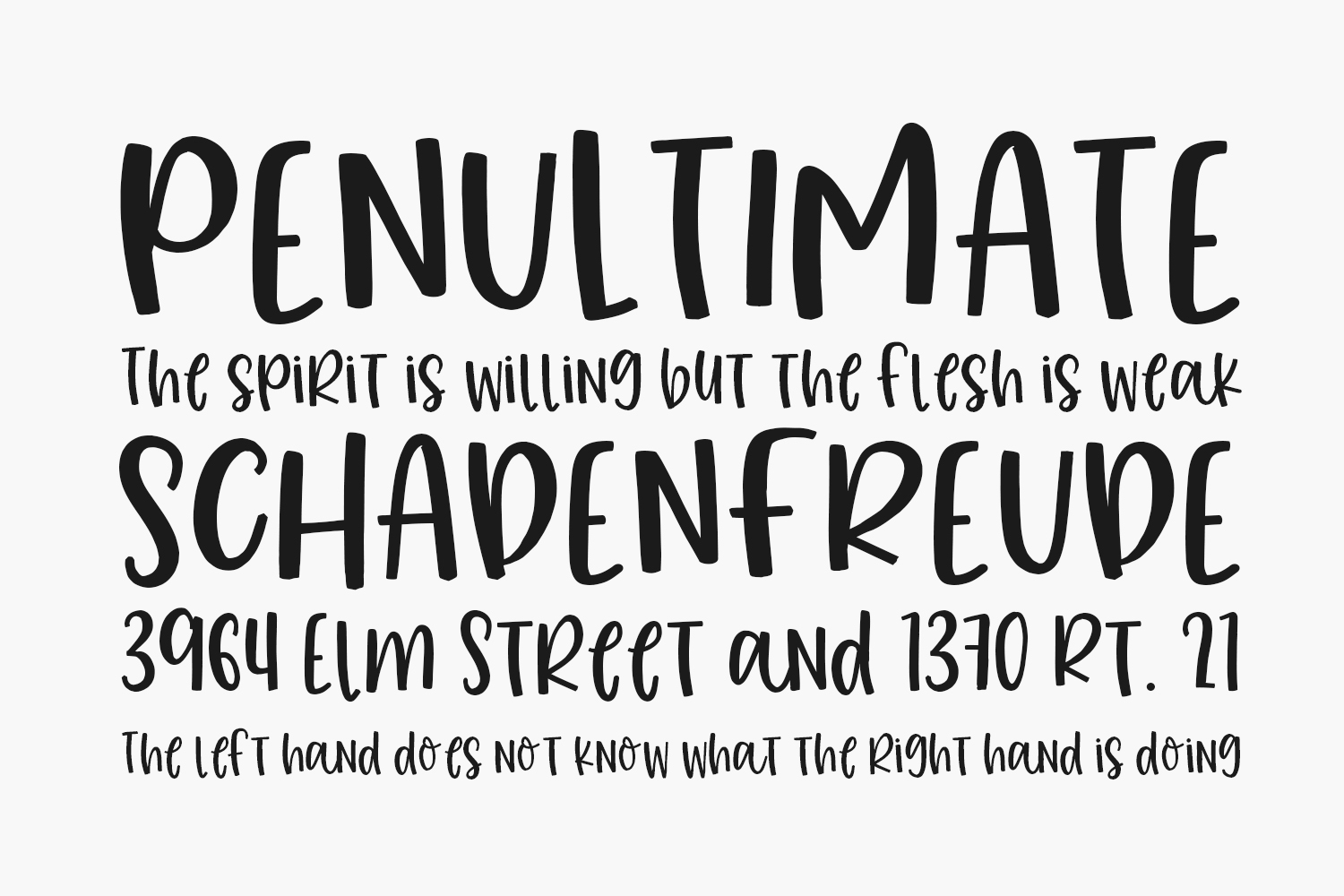
Fresh Lemon – Free Cheerful Hand‑Drawn Display Font
Fresh Lemon is a vibrant, hand-drawn display font created by Goodrichees. Its lively, irregular strokes and rounded shapes give off a fun, friendly personality that’s perfect for projects needing a joyful touch. Ideal for branding, packaging, social media overlays, greeting cards, invitations, and kids’ designs, this OTF/TTF font is free for personal use under a generous license. Spruce up your visuals with this upbeat and quirky typeface!
Why Choose Fresh Lemon?
- Playful Hand‑Drawn Feel: Casual, imperfect lines convey personality and charm.
- High Energy: Rounded shapes and lively rhythm make it stand out in display use.
- Versatile Use Cases: Perfect for packaging, social media graphics, kids’ products, and cheerful branding.
Where to Use Fresh Lemon?
- Product Packaging & Labels: Brightens up food, beverage, or lifestyle product branding.
- Social Media Graphics: Eye-catching overlays for Instagram Stories, TikTok, or Pinterest visuals.
- Greeting Cards & Invitations: Adds a warm, handcrafted touch to celebrations and greetings.
- Kids’ Materials: Ideal for book covers, posters, or educational materials designed for children.
- Fun Branding & Logo Designs: Great for playful boutiques, toy brands, or artisanal businesses.
Design Tips with Fresh Lemon
Use at medium to large sizes (24 pt+) to highlight its hand-drawn character. Pair with a clean sans-serif like Renovate or Tommy to maintain readability. Choose warm, pastel or sunny color palettes—think lemon yellow, coral, mint—for maximum cheer. Try placing it over textures like kraft paper or watercolor for a handmade, organic feel.